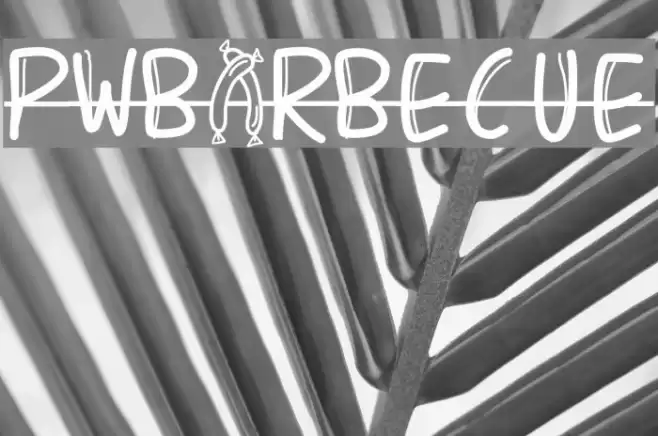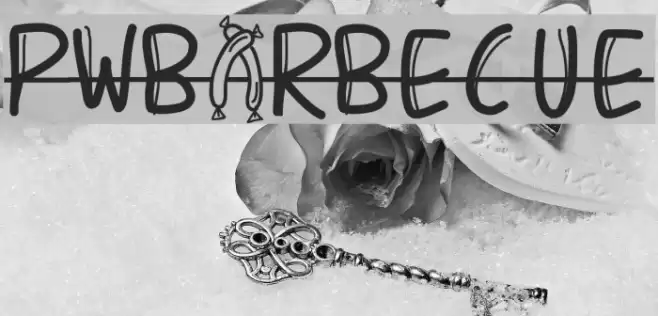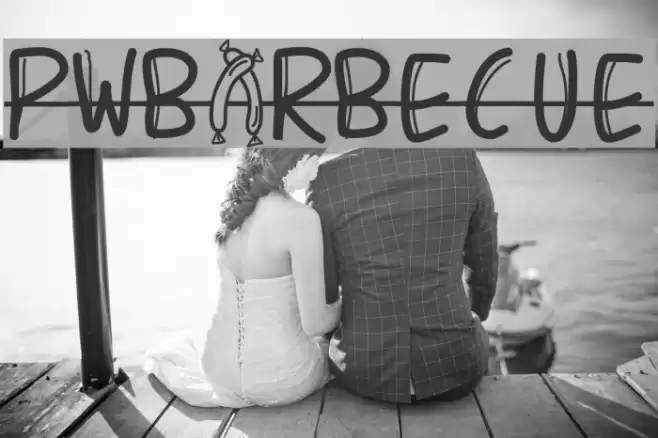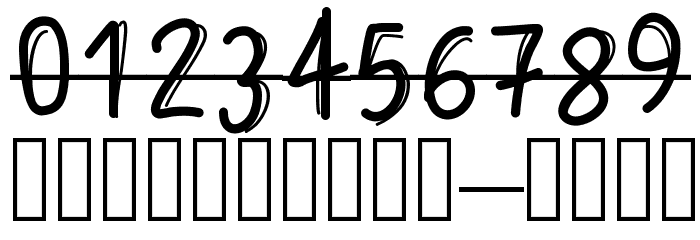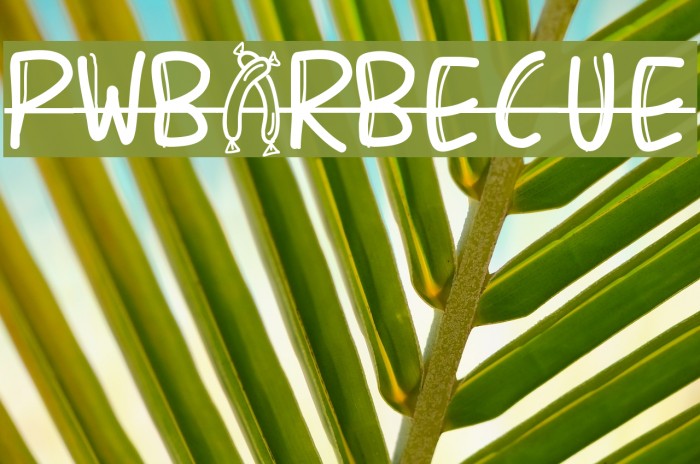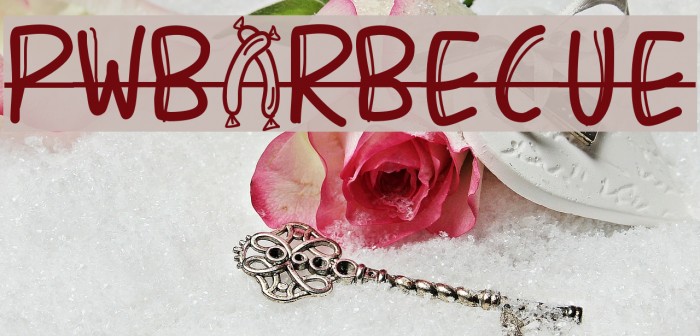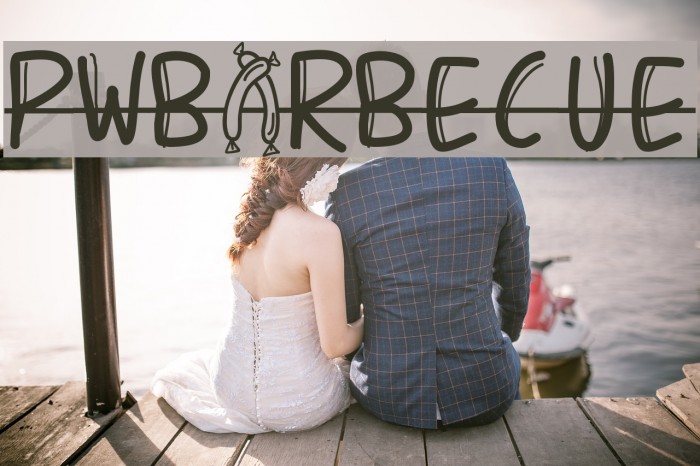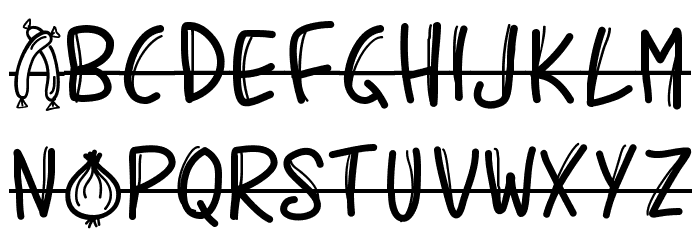
PWBarbecue Font
PWBarbecue Description
This playful and whimsical font features a unique barbecue theme, incorporating elements like skewers and onions into the letterforms. The uppercase and lowercase letters are designed with a casual, hand-drawn style, giving the font a friendly and approachable appearance. The numbers and special characters maintain the same playful aesthetic, making it ideal for projects that require a fun and informal touch. The font's distinctive style is perfect for themed events, food-related branding, or any creative project that seeks to capture a lighthearted and festive atmosphere.
A playful, barbecue-themed font with hand-drawn, whimsical characters from Decorative fonts.
- Proposed Projects: Ideal for themed events, food-related branding, party invitations, and creative projects seeking a fun, informal touch.
- Use Case: Logos, Invitations, Themed Events